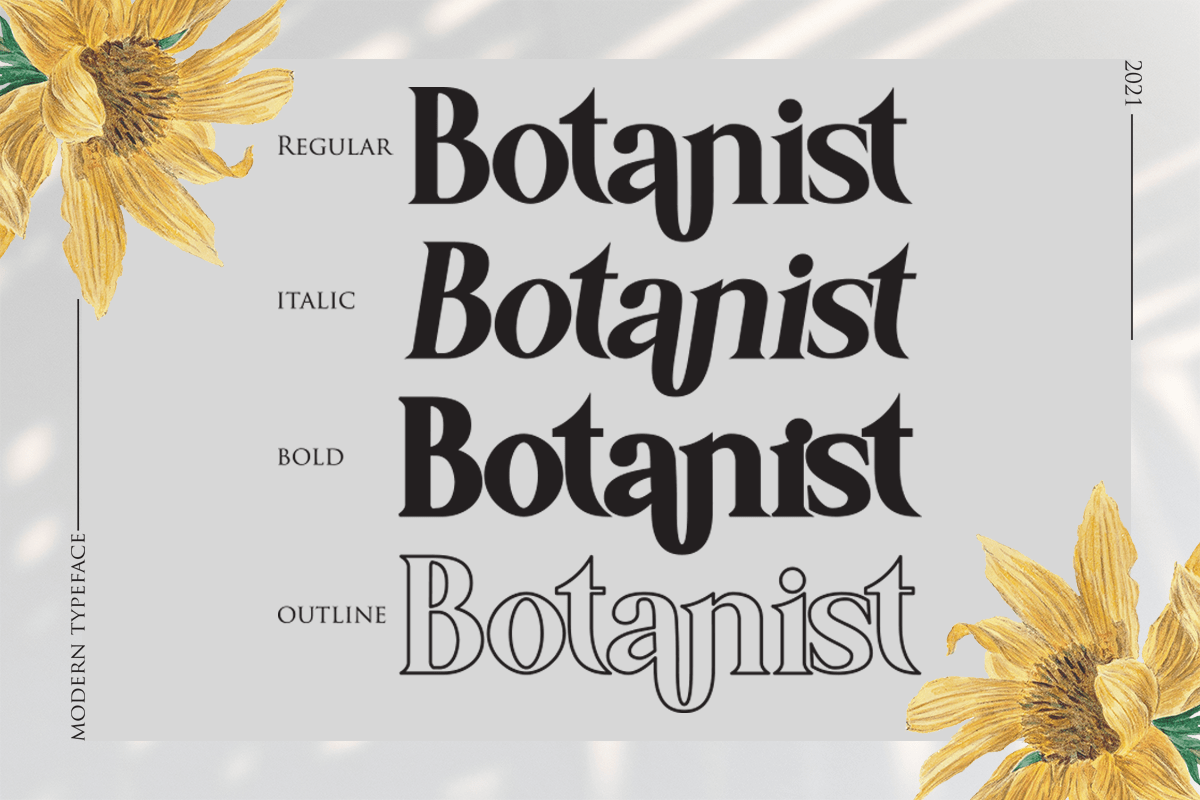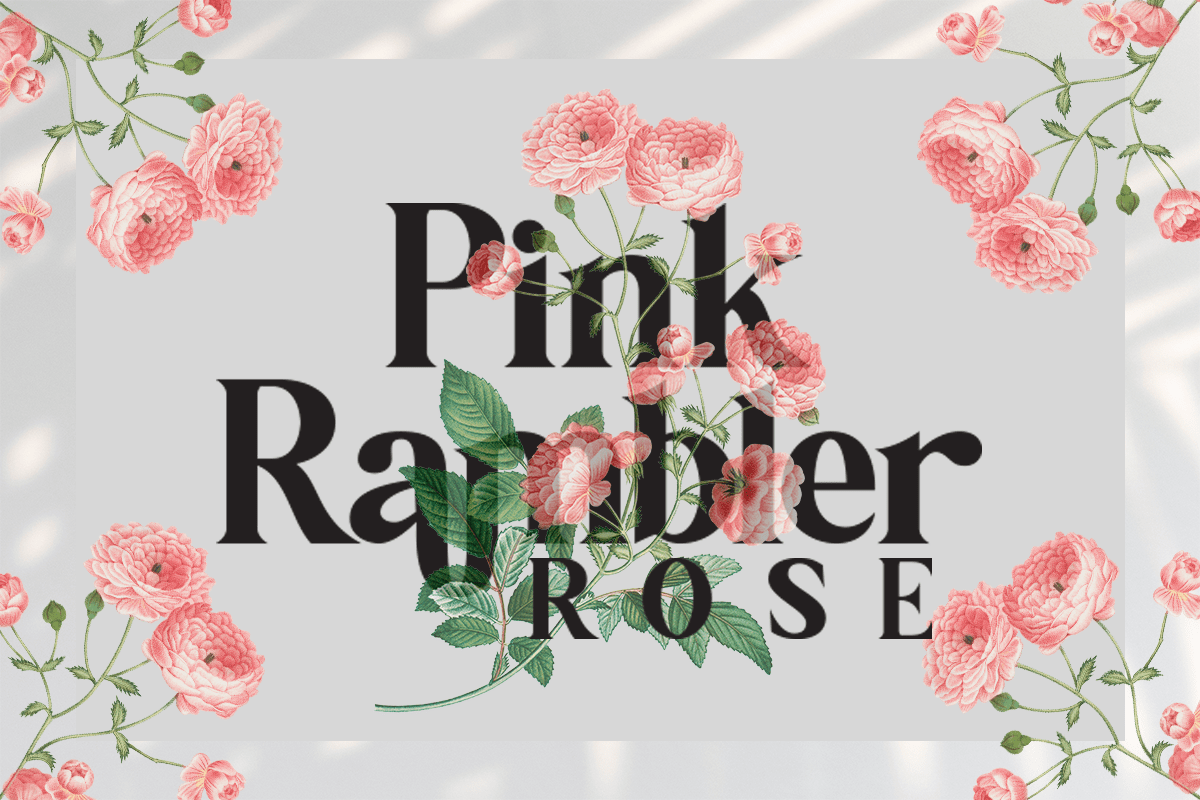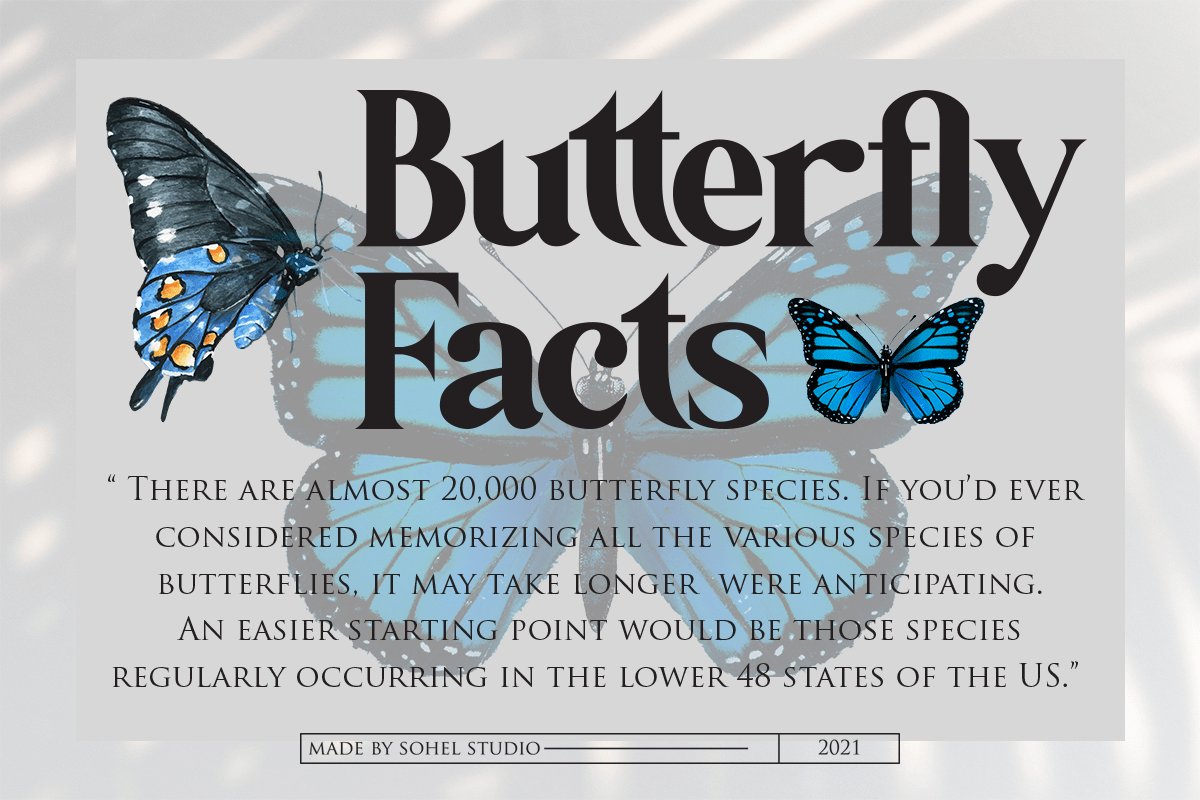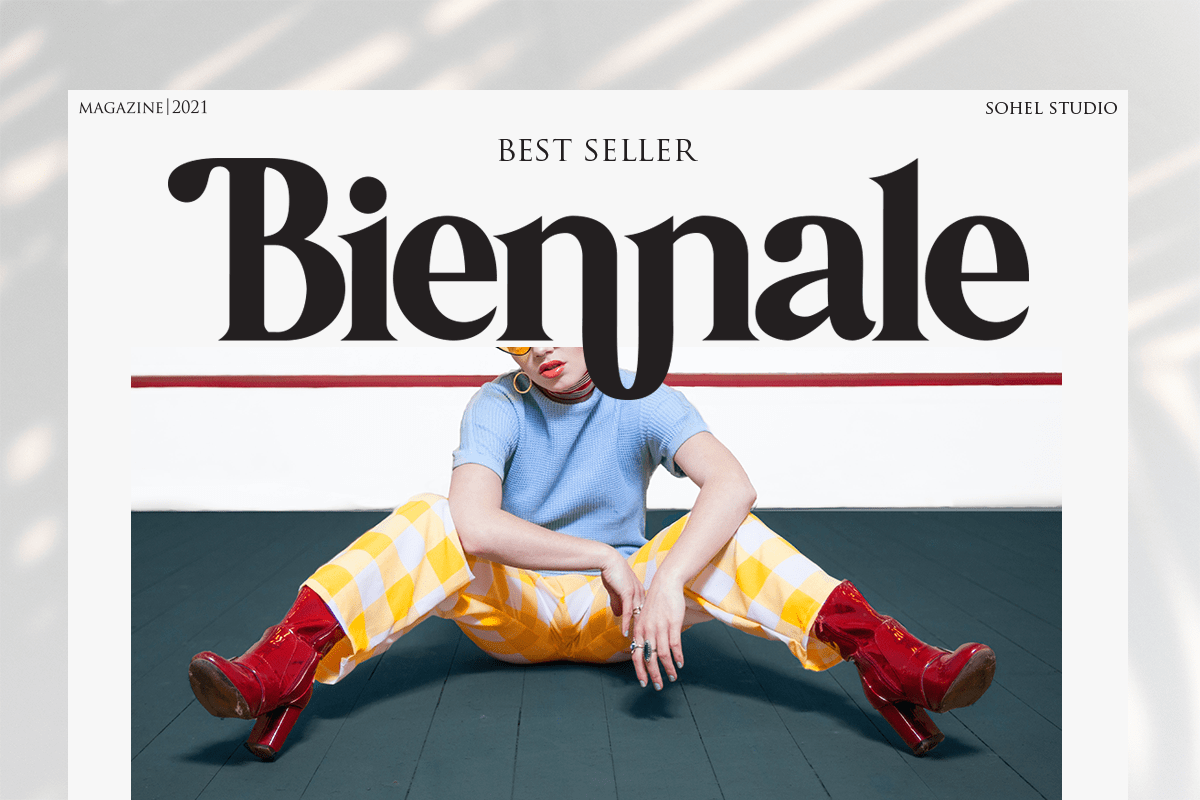
Botanist Font
Botanist Serif Font
This is a classy, bold upper and lowercase typeface that looks incredible in both large and small settings. Best used as a display for headings and logos, Botanist clean lines and smooth curves give any project an extra touch of class.
• 4 Weights font (Regular and Italic)
• Lowercase and Uppercase
• Beautiful Alternates & Ligatures
• Numerals & Punctuation
• Accented characters
• Multilingual